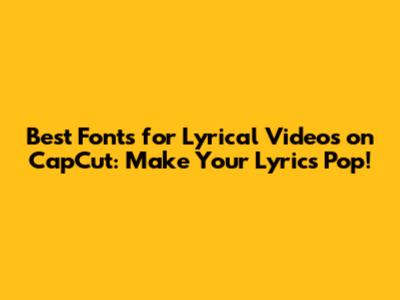
- Genre: Does your music lean towards pop, rock, R&B, or something else? Different genres often pair well with specific font styles.
- Mood: Is the song upbeat and cheerful, or is it melancholic and reflective? The font should match the emotional tone.
- Target Audience: Who are you trying to reach with your video? A younger audience might appreciate bolder, more playful fonts, while an older audience might prefer something more classic and refined.
- Contrast: Ensure there is enough contrast between the font color and the background to make the lyrics easily readable. A dark font on a light background or vice versa is generally a good approach.
- Size: Adjust the font size to ensure that the lyrics are large enough to be read comfortably on different devices. Test your video on both mobile and desktop screens to ensure readability.
- Animation: Use CapCut's animation features to bring your lyrics to life. Simple fade-in and fade-out effects can add a touch of dynamism without being distracting.
- Consistency: Stick to a limited number of fonts (ideally two or three) to maintain a consistent and professional look throughout your video.
- Hierarchy: Use different font weights and sizes to create a visual hierarchy and emphasize important lyrics or phrases.
- Background Clarity: Your background shouldn’t overshadow the text. Use blurred or dimmed backgrounds to help lyrics stand out.
- Font Color: Choose colors that contrast well with the background. White or light-colored text on dark backgrounds often works best.
- Text Shadows/Outlines: Adding subtle shadows or outlines can significantly improve readability, especially on busy backgrounds.
- Spacing: Adjust the letter and line spacing to prevent crowding and improve visual clarity.
Creating engaging lyric videos on CapCut is a fantastic way to connect with your audience and bring music to life. A crucial element in making your lyric video stand out is choosing the right font. The font you select can significantly impact readability, visual appeal, and the overall mood of your video. Guys, picking the perfect font can be a game-changer. It’s like choosing the right outfit for a special occasion – it has to fit just right! In this article, we'll explore some of the best fonts for lyric videos on CapCut, providing you with options to enhance your creative projects.
Understanding Font Psychology for Lyric Videos
Before diving into specific font recommendations, it’s important to understand font psychology. Different fonts evoke different emotions and associations. For instance, a clean, sans-serif font might convey modernity and simplicity, while a more ornate, script font can suggest elegance and sophistication. Think about the tone of your song and the message you want to convey. Aligning your font choice with these elements will create a more cohesive and impactful viewing experience. The psychology of fonts is more than just aesthetics; it's about creating an emotional connection with your viewers. Choosing the right font can emphasize the lyrical content and enhance the overall message. Also, it ensures that your video resonates deeply with your audience, making the viewing experience truly unforgettable.
Consider these points:
Top Font Recommendations for CapCut Lyric Videos
Alright, let's get into the fun part – the fonts themselves! Here are some of the top font recommendations for creating stunning lyric videos on CapCut.
1. Montserrat
Montserrat is a versatile sans-serif font that works well in a variety of contexts. Its clean lines and modern appearance make it highly readable, even at smaller sizes. This is crucial for lyric videos, where viewers need to be able to follow the words easily. Montserrat is also a great choice because it comes in a variety of weights, allowing you to create visual hierarchy and emphasis within your lyrics. The clarity and simplicity of Montserrat make it ideal for both fast-paced and slower-paced lyric videos. Its adaptability ensures that your message is always clear and accessible, no matter the tempo of the music. Also, this is why Montserrat remains a top pick for lyric video creators seeking a reliable and stylish font option.
2. Bebas Neue
Bebas Neue is a popular sans-serif font known for its tall and narrow letterforms. It has a modern and minimalist aesthetic that can add a touch of sophistication to your lyric videos. Bebas Neue is particularly effective for creating a sense of energy and movement, making it a great choice for upbeat and dynamic songs. This font is visually striking and highly legible, which ensures that your lyrics stand out and capture the viewer's attention. Its distinct style makes it a favorite among designers and video creators who want to add a contemporary flair to their projects. The clean lines and bold presence of Bebas Neue make it an excellent choice for conveying a sense of modernity and style in your lyric videos.
3. Raleway
Raleway is an elegant sans-serif font that strikes a balance between modernity and sophistication. It features a slightly condensed design and a distinctive “W” that adds character to the text. Raleway works well for lyric videos with a more refined or artistic feel. Its versatility allows it to be used in a variety of styles, from minimalist to more elaborate designs. The balanced and refined look of Raleway ensures that your lyrics are both readable and visually appealing. This font’s subtle elegance can elevate the overall aesthetic of your video, making it a great choice for projects that aim to convey a sense of class and sophistication. Guys, Raleway is a fantastic option for those seeking a font that combines beauty with practicality.
4. Lato
Lato is a friendly and approachable sans-serif font that’s easy on the eyes. Its rounded letterforms and smooth lines make it highly readable, even on smaller screens. Lato is a great choice for lyric videos that aim to create a welcoming and inclusive feel. The warmth and clarity of Lato ensure that your lyrics are easily accessible and engaging for your audience. Its simplicity and readability make it a reliable choice for a wide range of video styles, from casual to more professional. This font's gentle and inviting appearance can help create a connection with your viewers, making it an excellent option for projects that prioritize approachability and user-friendliness. Consider Lato if you're aiming for a font that feels both modern and inviting.